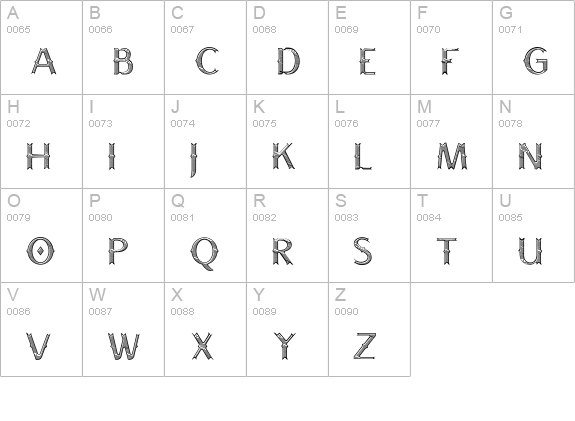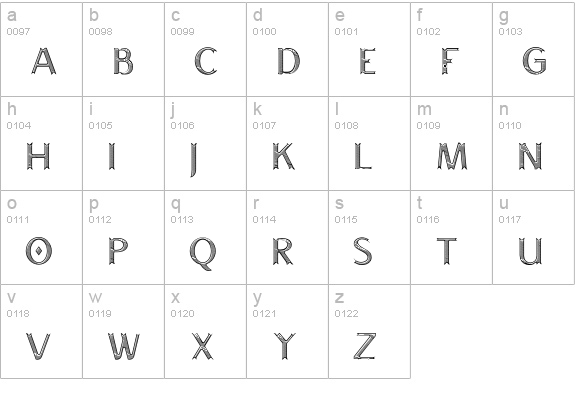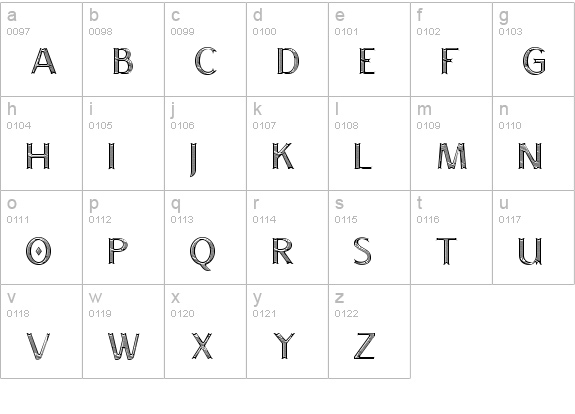
LAKESTER INLINE LAYER 3 Font Details
The LAKESTER INLINE LAYER 3 font is a stylish and modern typeface that brings a unique touch to your design projects. With its sleek inline design and clean lines, this font is perfect for adding a sophisticated and contemporary look to any text. Whether you're working on branding, posters, invitations, or any other creative project, LAKESTER INLINE LAYER 3 font will surely make your work stand out. The best part is that this font is available for free download at FontsMarket.com, making it easily accessible for designers and creatives looking to enhance their projects with a touch of elegance and flair. Don't miss out on the opportunity to add LAKESTER INLINE LAYER 3 font to your font collection and take your designs to the next level.